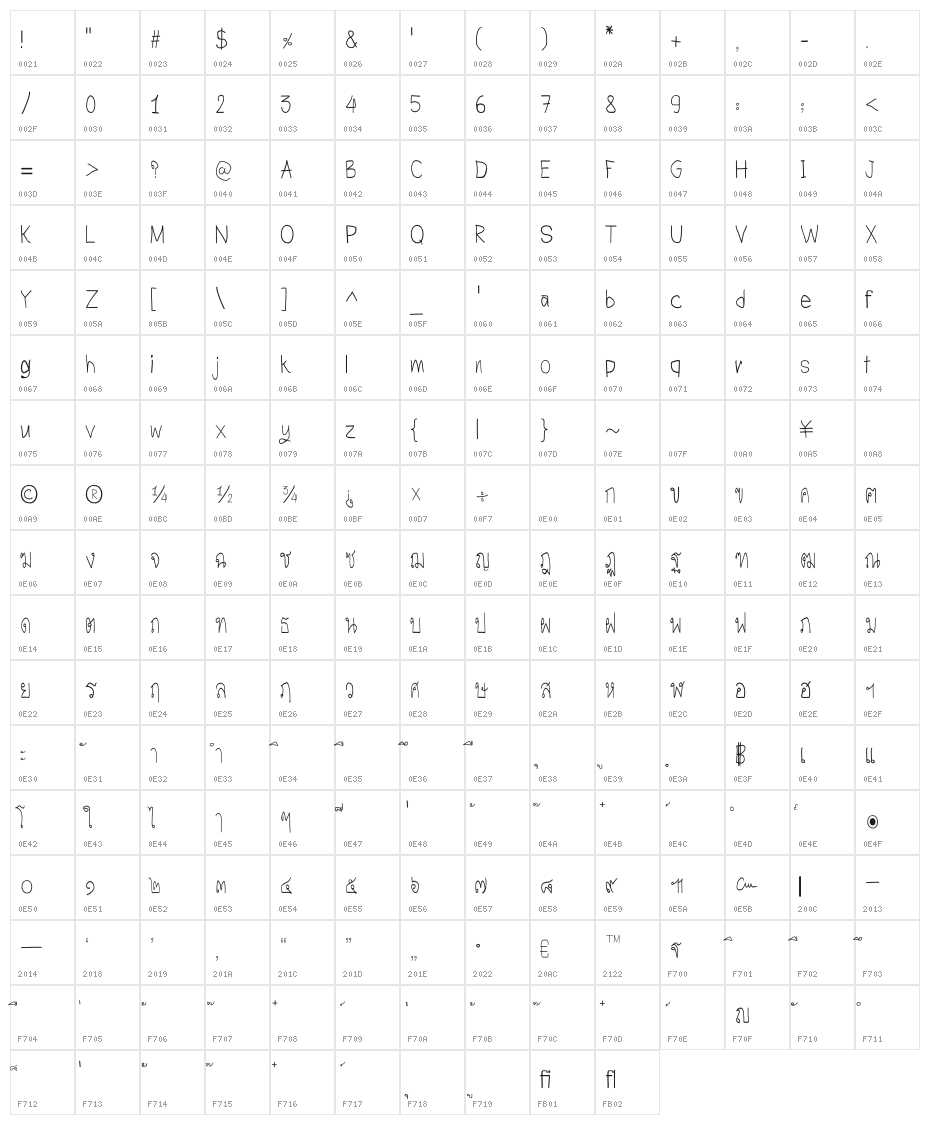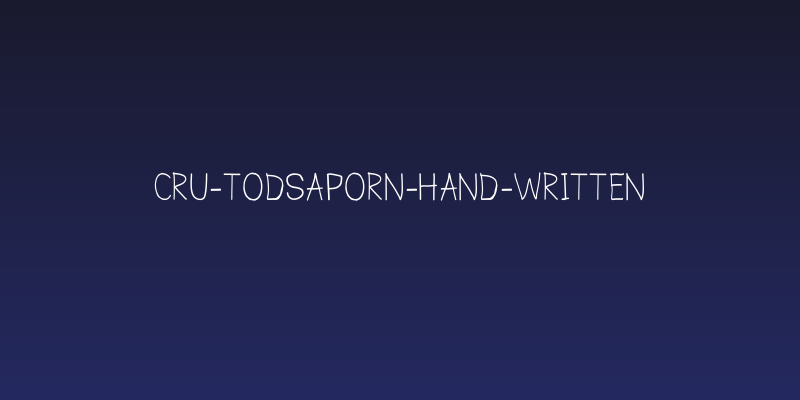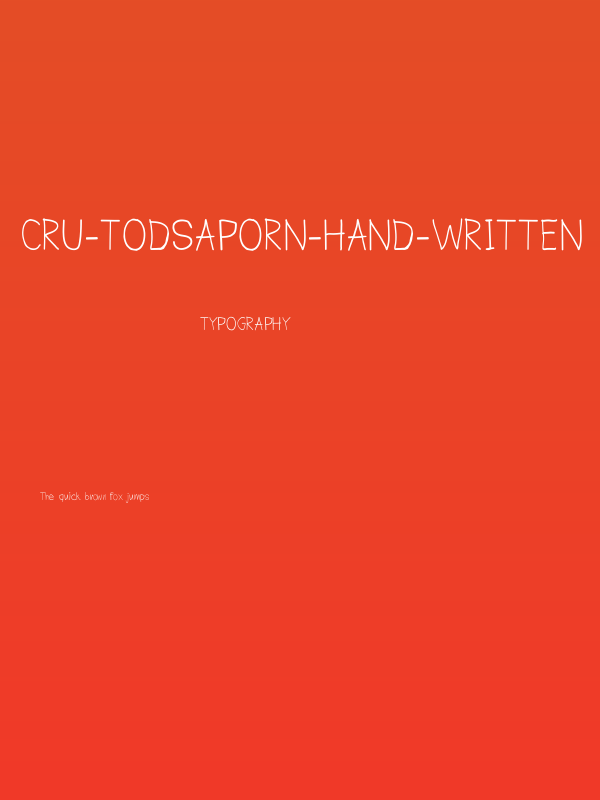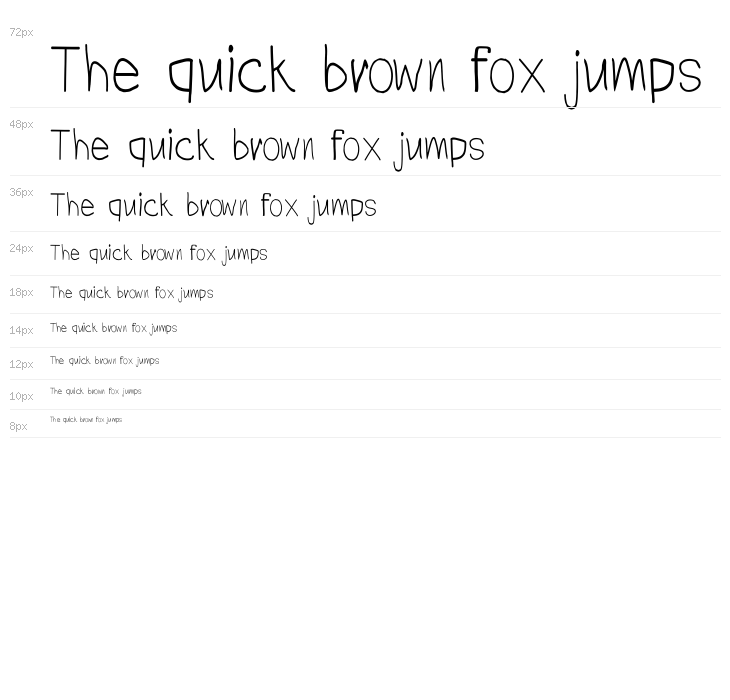
CRU-Todsaporn-Hand-Written Font
CRU-Todsaporn-Hand-Written Description
This font features a playful and casual handwritten style, characterized by its irregular strokes and slightly uneven baseline. The uppercase letters are tall and narrow, with a quirky charm that adds a personal touch to any text. Lowercase letters maintain a consistent style, with some letters like 'g' and 'y' having distinctive loops. The numerals are clear and legible, matching the overall informal aesthetic. Special characters are included, maintaining the same hand-drawn feel. This font exudes a friendly and approachable vibe, perfect for projects that require a personal or informal touch.
| Use Case | Headlines, Informal text, Personal projects |
| Proposed Projects | Ideal for greeting cards, personal blogs, children's books, and informal branding. |